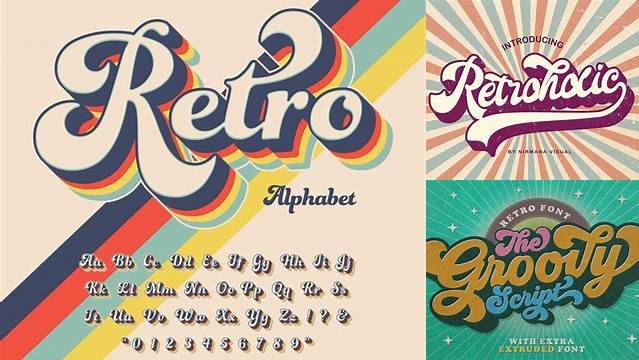
Retro Fonts: Free Downloads For Vintage Designs
Retro fonts, with their nostalgic charm, are experiencing a massive resurgence in the design world, offering a visual bridge to bygone eras. Whether you're aiming to evoke the groovy vibes of the 70s, the neon-drenched aesthetics of the 80s, or the pixelated charm of early video games, the right retro font can instantly transport your audience. In this article, we'll explore the world of retro fonts, where to find them for free, and how to effectively use them in your design projects.
What Defines a Retro Font?
Retro fonts are more than just old fonts; they are carefully crafted typefaces that capture the essence of specific historical periods. These fonts often feature distinctive characteristics such as:
- Serifs and Slab Serifs: Evoking the vintage typography of newspapers and posters.
- Rounded Edges: Reminiscent of the friendly and approachable designs of the mid-20th century.
- Geometric Shapes: Reflecting the influence of Art Deco and modernist movements.
- Bold and Playful Styles: Capturing the fun and energetic spirit of the 70s and 80s.
- Pixelated and Distorted Forms: Paying homage to the early days of digital design and gaming.
These attributes, among others, contribute to the unique appeal of retro fonts, making them a versatile tool for designers seeking to add a touch of nostalgia and character to their work. Selecting the perfect retro font requires careful consideration of the project's overall theme and target audience.
The Allure of Retro Fonts
Retro fonts possess a unique allure that stems from their ability to evoke feelings of nostalgia and familiarity. In a world dominated by sleek, modern designs, these fonts offer a refreshing departure, reminding us of simpler times and cherished memories. This nostalgic quality makes them particularly effective for branding, advertising, and editorial design, where creating an emotional connection with the audience is paramount.
Furthermore, retro fonts can add a sense of authenticity and credibility to a design. By using a typeface that accurately reflects a specific historical period, designers can create a more immersive and believable experience for the viewer. This is especially important for projects that aim to recreate or pay homage to a particular era.
Retro fonts also offer a wide range of stylistic options, from elegant and refined serifs to bold and playful sans-serifs. This versatility allows designers to experiment and find the perfect font to match their creative vision. Whether you're designing a vintage-inspired logo, a retro-themed website, or a nostalgic poster, a well-chosen retro font can elevate your design and make it truly stand out.
- DaFont: DaFont is a popular font archive that offers a vast collection of free fonts, including a wide range of retro styles. While the quality of fonts on DaFont can vary, the site's extensive selection makes it a valuable resource for finding unique and interesting retro fonts. Be sure to check the license agreement for each font before using it in a commercial project.
- Creative Market (Free Goods): Creative Market is a marketplace for design assets, including fonts. Each week, Creative Market offers a selection of free goods, which often includes free fonts. Keep an eye on Creative Market's free goods section for opportunities to download premium retro fonts for free.
Tips for Using Free Font Resources
When downloading fonts from free resources, it's essential to keep a few things in mind to ensure you're using them legally and effectively:
- Check the License: Always check the license agreement for each font before using it in a project. Some fonts may be free for personal use but require a commercial license for business purposes. Pay close attention to the terms of the license to avoid copyright infringement.
- Ensure Font Quality: Not all free fonts are created equal. Some may have technical issues, such as poor kerning or missing characters. Before using a font in a project, test it thoroughly to ensure it meets your quality standards.
Retro fonts offer a unique opportunity to add character, nostalgia, and visual interest to your designs. By understanding the characteristics of different retro styles and knowing where to find free fonts, you can create stunning designs that capture the essence of bygone eras. Remember to use retro fonts strategically, combining them with modern elements and paying attention to context to create a design that is both timeless and contemporary. So go ahead, explore the world of retro fonts and add a touch of vintage charm to your next project!